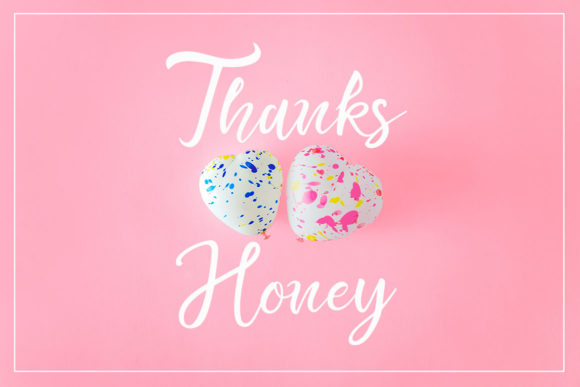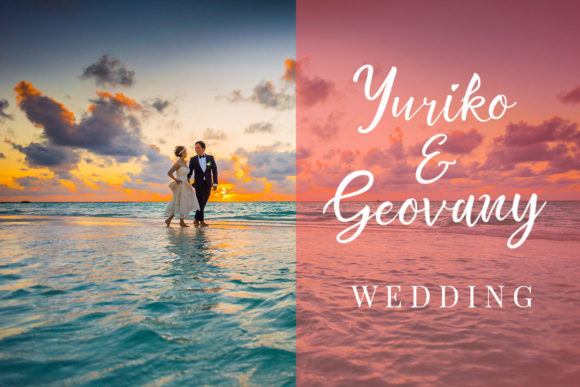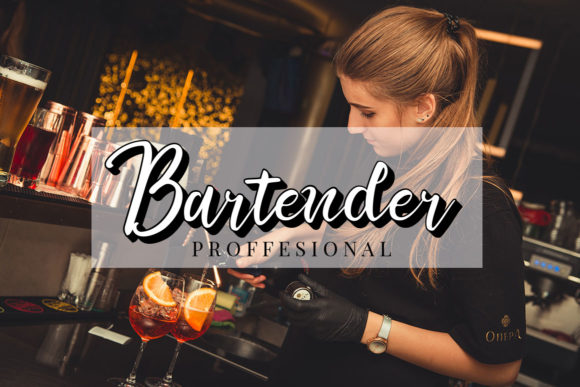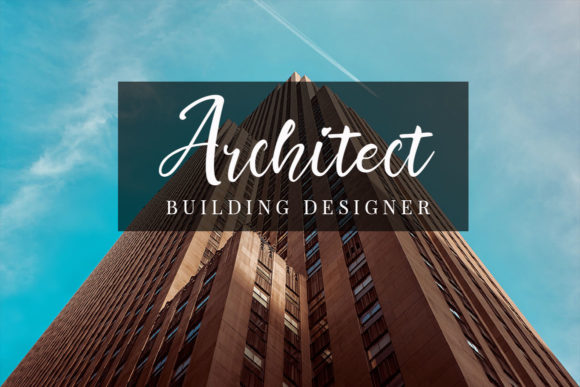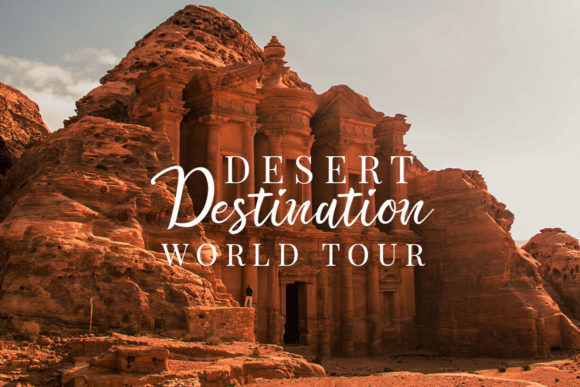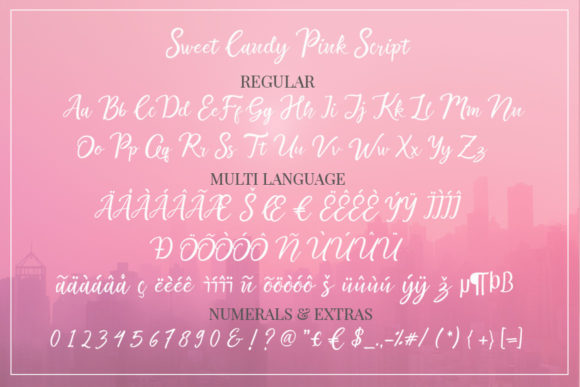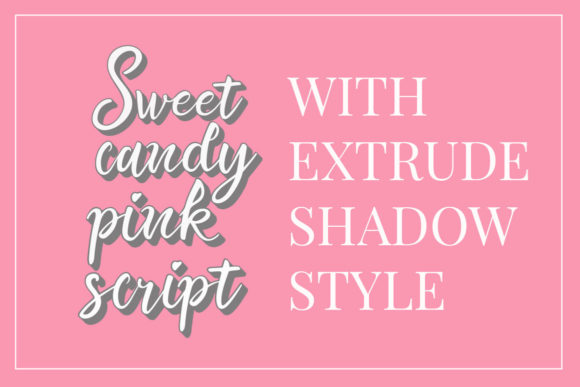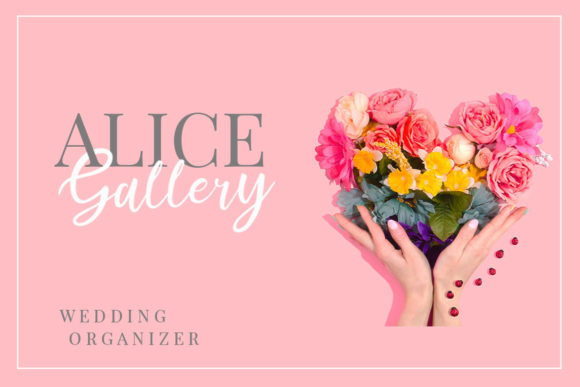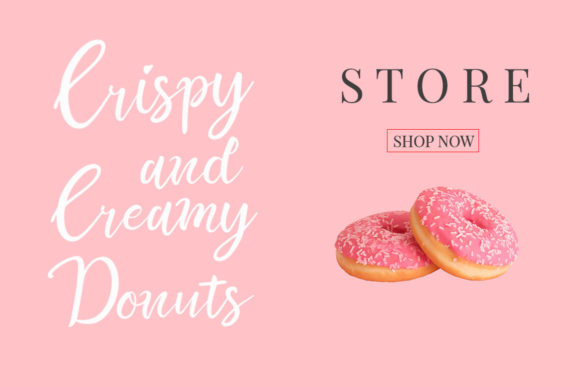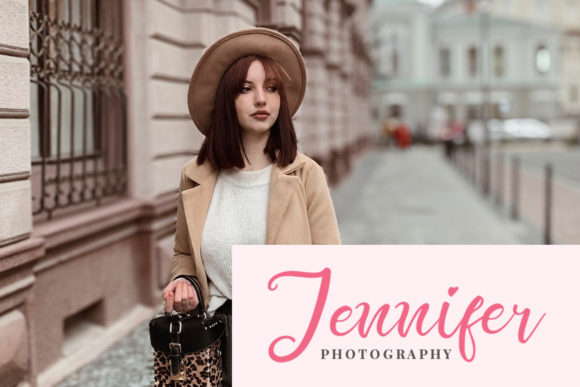
Sweet Candy Pink Font
About Sweet Candy Pink Font
Sweet Candy Pink is a gorgeous script font with a cheerful vibe. It features amazing ligatures and swashes. Fell in love with its unique look and use it to create cute greeting cards, amazing wedding invitations and gorgeous stationery!